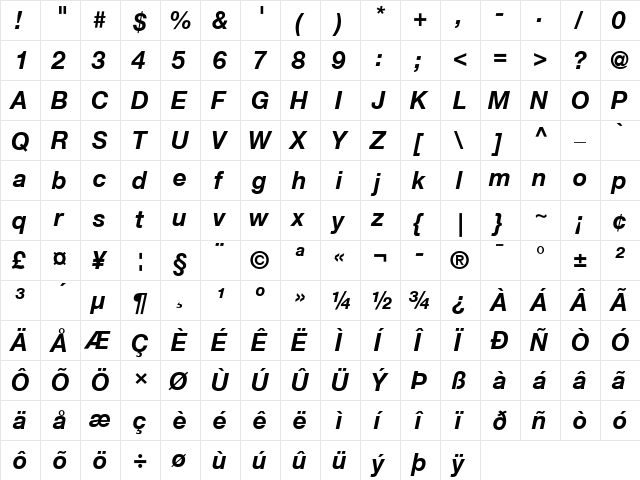
Helvetica 55 Roman Bold Italic Font Preview
Helvetica 55 Roman Bold Italic
Helvetica 55 Roman Bold Italic Font Details
Design Context for Helvetica 55 Roman Typeface
Helvetica 55 Roman takes a measured approach to typography — its balanced proportions and neutral character make it a reliable workhorse for both digital and print work. Its italic angle brings a sense of urgency and motion to the letterforms. Its bold stroke weight gives it real presence on the page.
Pro Tip: Use Helvetica 55 Roman for emphasis, pull quotes, and subheadings where its slanted energy can add rhythm to the layout.